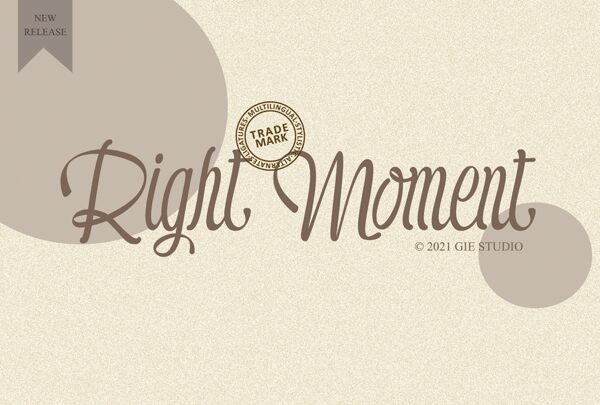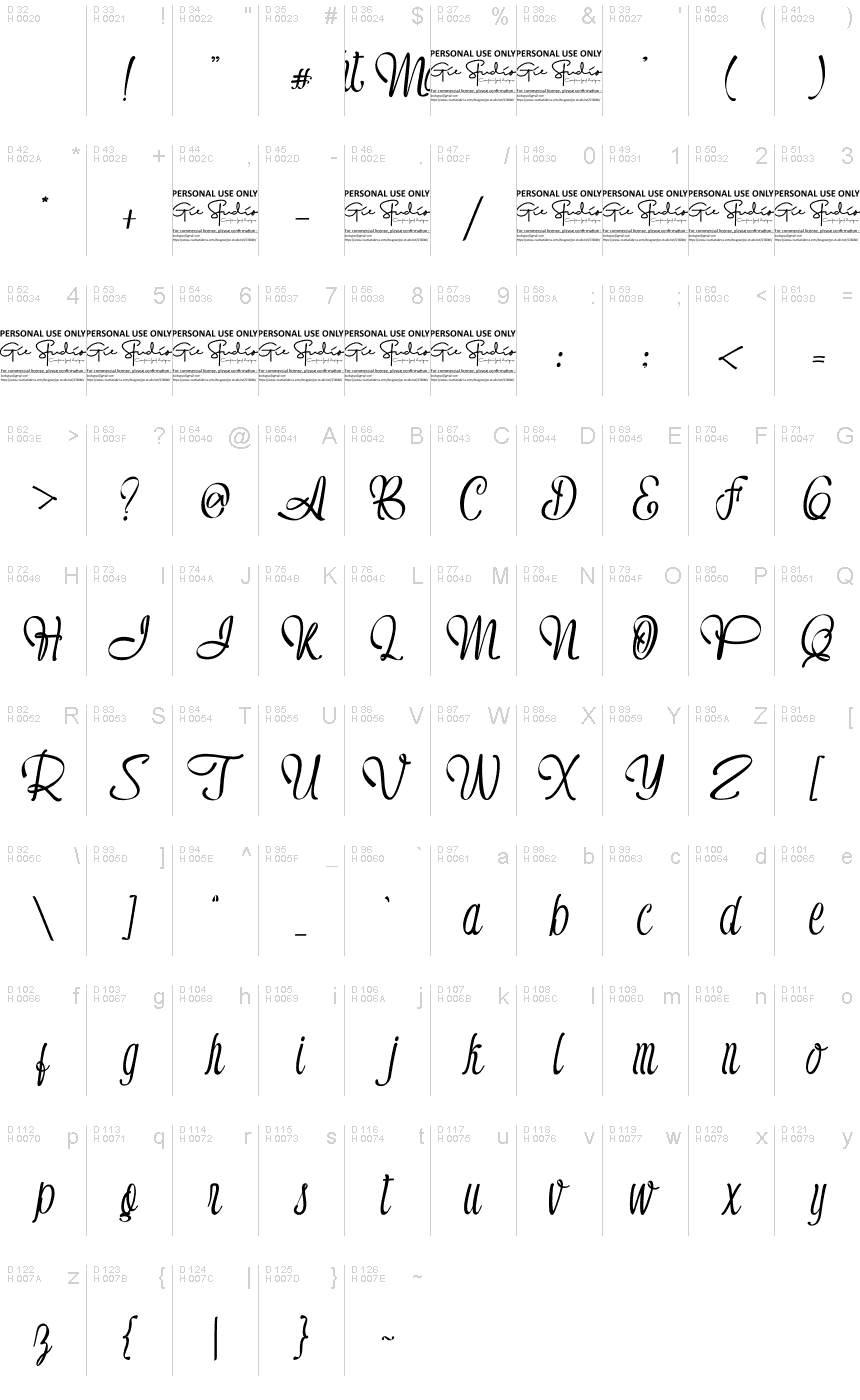
Right Moment, the latest creation from Gie Studio, is a stunning retro calligraphy font that exudes elegance and sophistication. Its light weight and condensed width make it ideal for projects that require a touch of finesse and refinement. From wedding invitations to restaurant menus, Right Moment adds a touch of timeless class to any design. Its flowing cursive strokes transport viewers to a bygone era while maintaining a modern edge. Use Right Moment for your next project and watch as it becomes an instant classic.